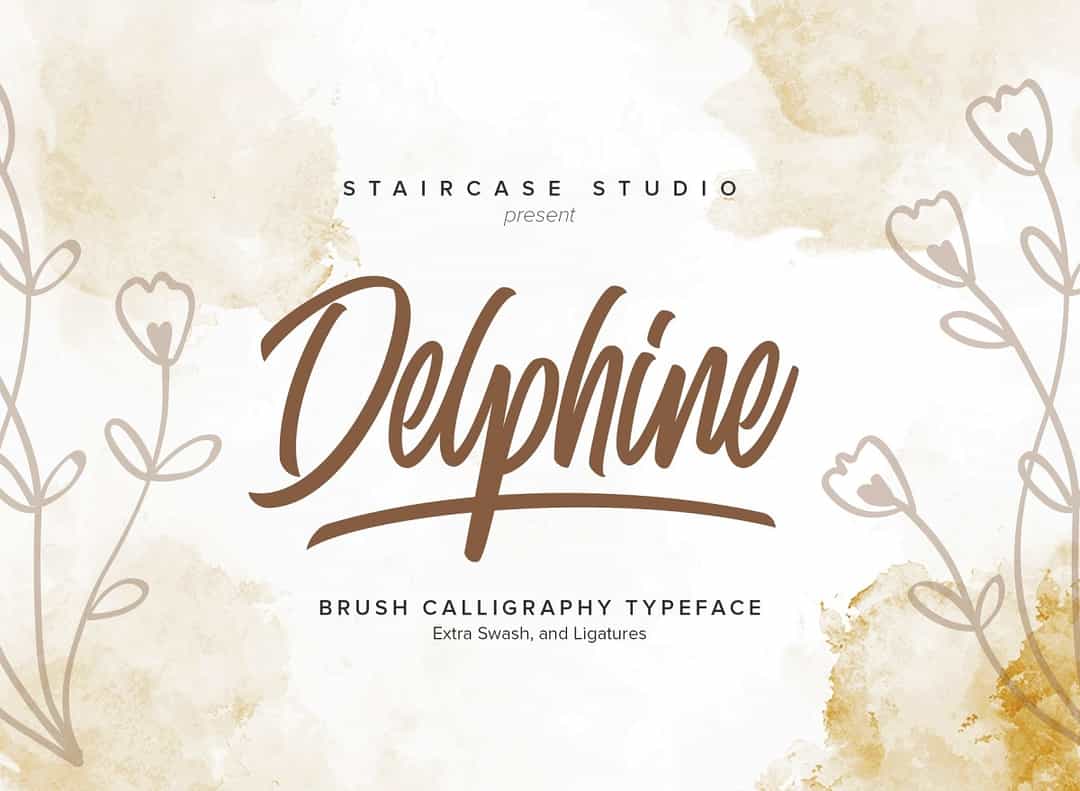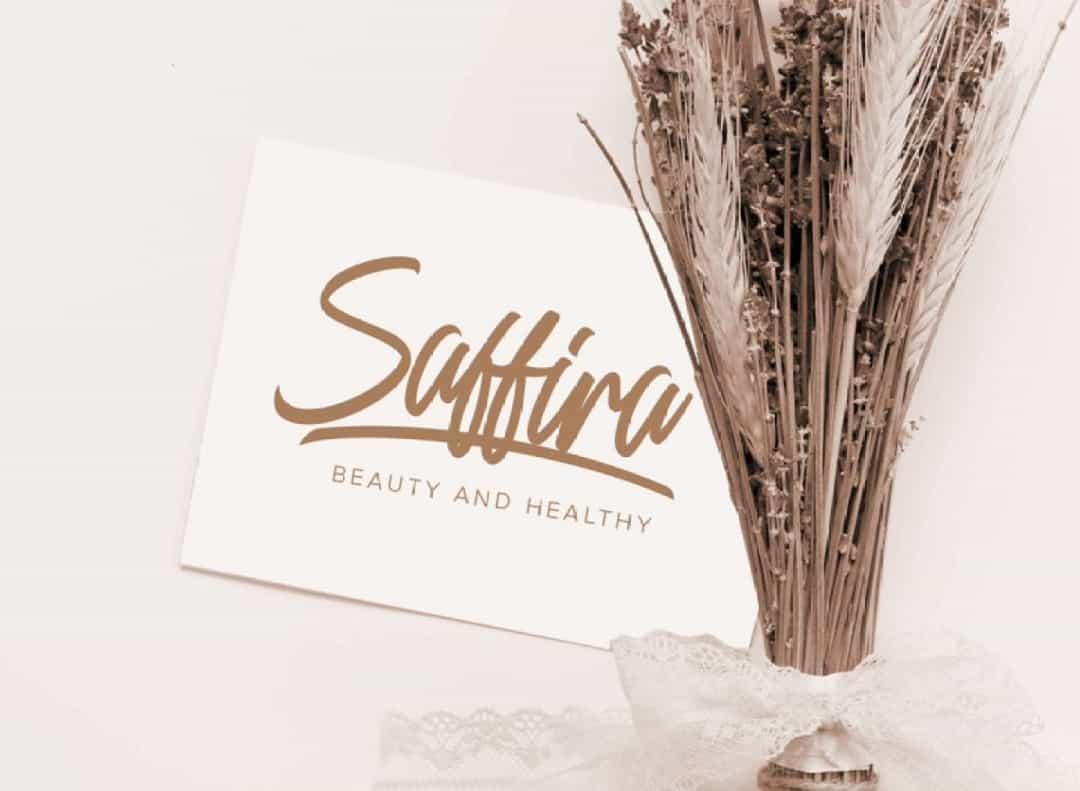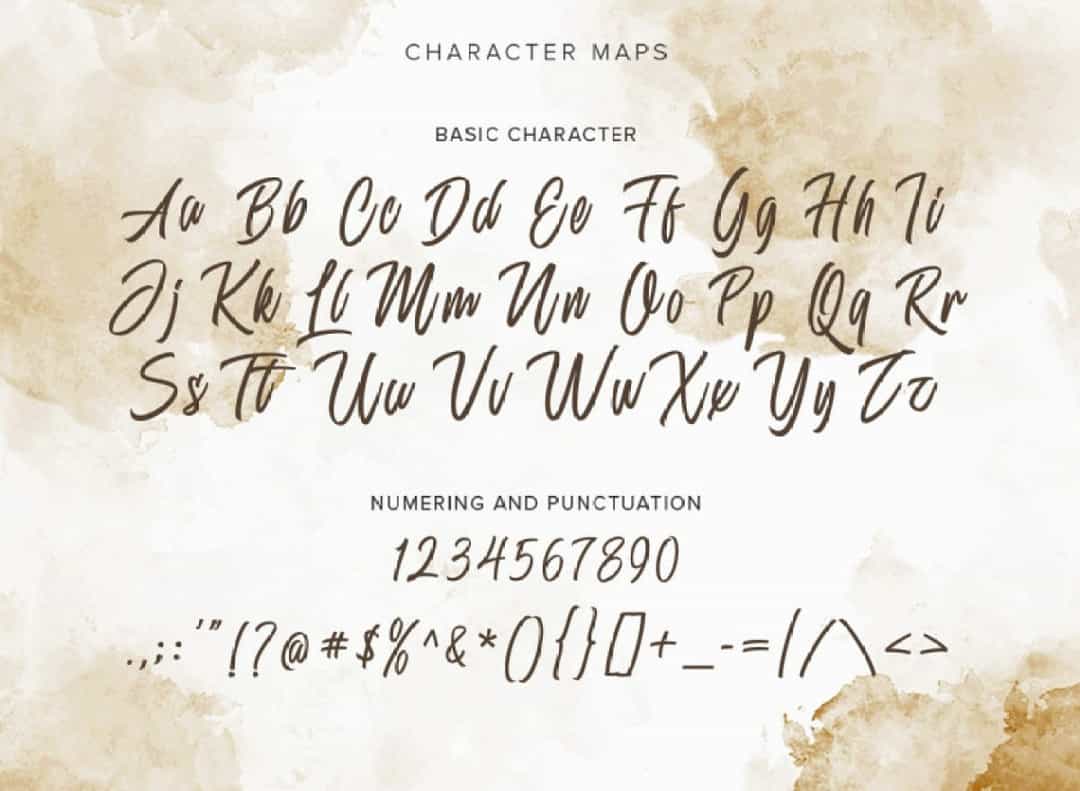
Discover Delphine Font, part of the Brush Calligraphy Handwritten collection—a versatile and unique font perfect for adding a personal touch to your projects. Download it for free and enjoy crafting designs with style, from invitations to social media posts. This font is available exclusively for personal use, giving you the freedom to create without limits. Unlock your creativity with Delphine Font today!
Delphine Font is an informal handwritten script font with an inviting and welcoming experience, perfect for many projects such as headings, branding wedding designs, invitations and signatures, logos labels labels etc.